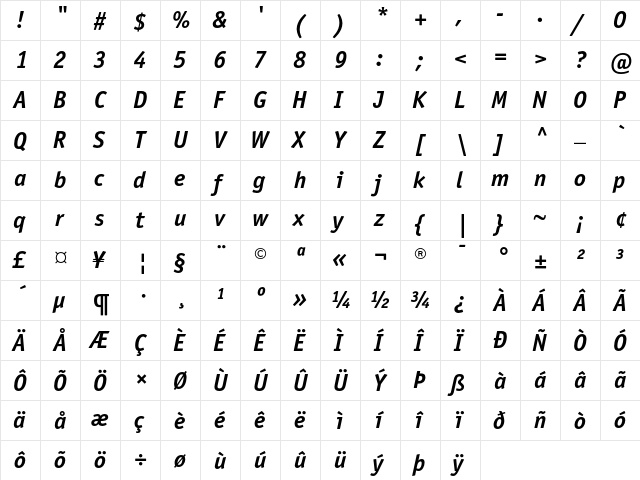
ITC Officina Sans Bold Italic
Design Context for ITC Officina Sans Typeface
ITC Officina Sans takes a measured approach to typography — its balanced proportions and neutral character make it a reliable workhorse for both digital and print work. The dynamic lean of this cut emphasises speed and emphasis in any layout. Its bold stroke weight gives it real presence on the page.
Pro Tip: Use ITC Officina Sans for emphasis, pull quotes, and subheadings where its slanted energy can add rhythm to the layout.